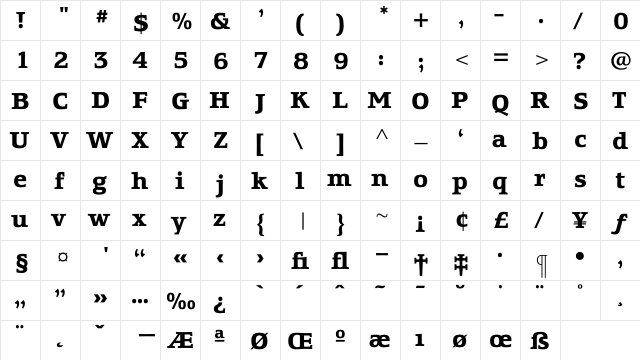
EquestrienneBold Regular
Design Context for EquestrienneBold Typeface
EquestrienneBold takes a measured approach to typography — its balanced proportions and neutral character make it a reliable workhorse for both digital and print work. Its bold stroke weight gives it real presence on the page.